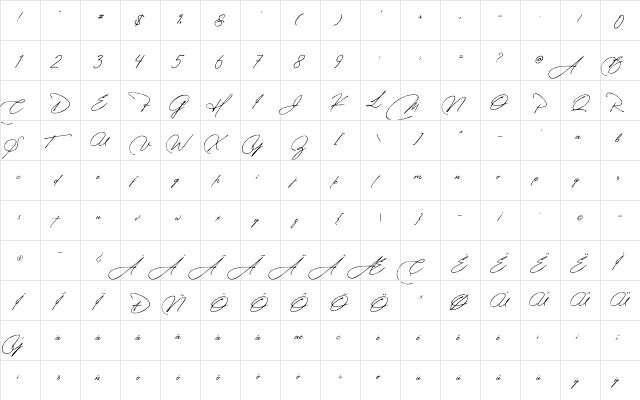
Manchester Signature Regular
Design Context for Manchester Signature Typeface
Manchester Signature is a composed and adaptable typeface that performs quietly and consistently across a wide range of design contexts.